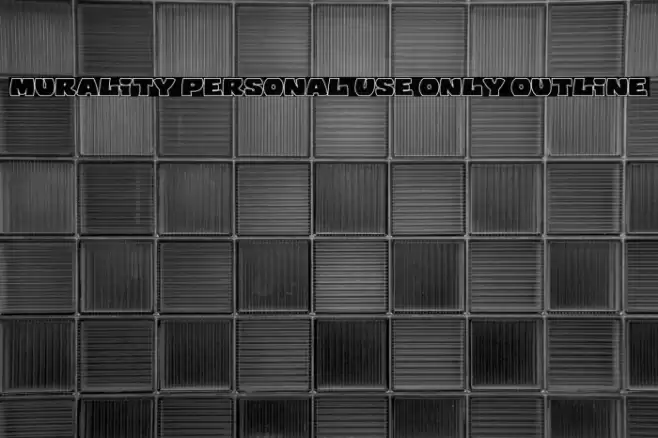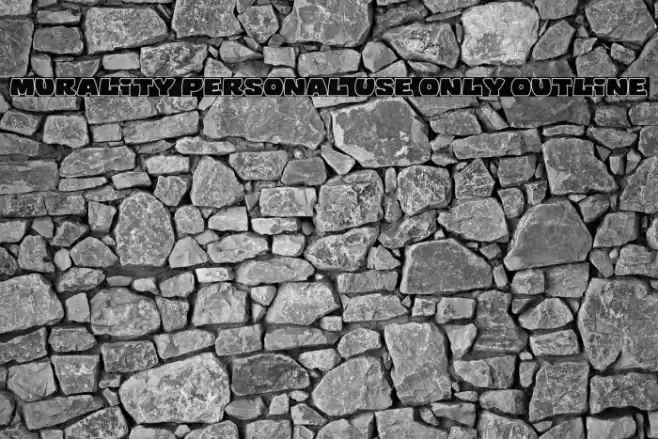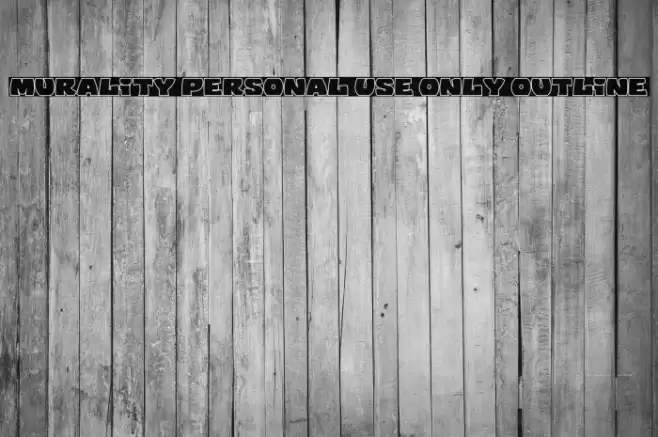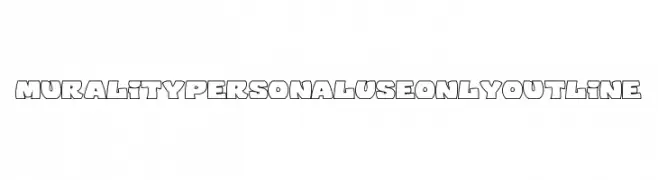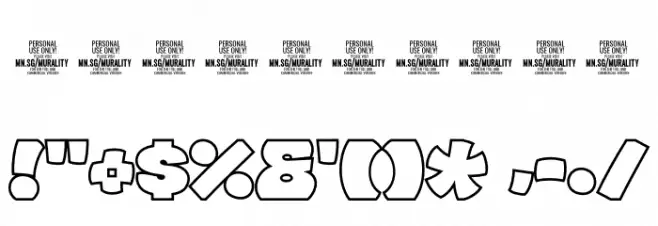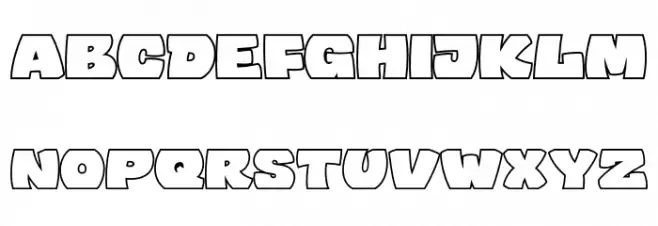
Murality PERSONAL USE ONLY Outline Font
Murality PERSONAL USE ONLY Outline Description
A bold, outlined display font with geometric, blocky letterforms and playful, rounded corners. The characters are uppercase with consistent stroke width and a cartoonish, graffiti-inspired style. The outline-only design gives it a hollow, airy appearance.
Bold, outlined, geometric display font with playful, blocky shapes from Uncategorized fonts.
- Proposed Projects: Posters, murals, street art graphics, children’s book covers, event flyers, creative branding.
- Overall Style: Decorative, Playful, Urban
- Use Case: Headlines, Posters, Logos, Signage